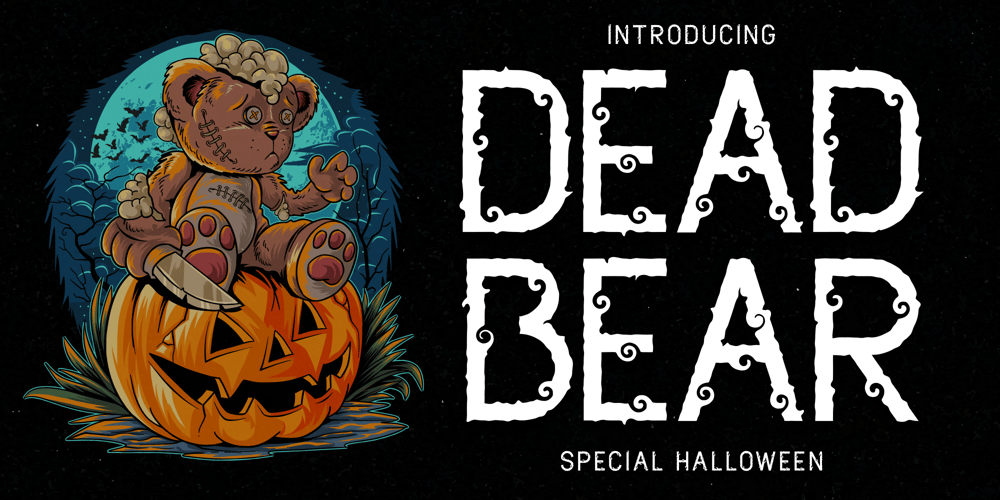
Dead Bear Font Family was designed by Alif Ryan Zulfikar and published by Sakha Design. Dead Bear contains 2 styles and family package options. Dead Bear is a cool and creepy display font. It is imposing and features uniquely shaped letters, and as a result, it will easily match a wide range of creations that require a distinct touch.